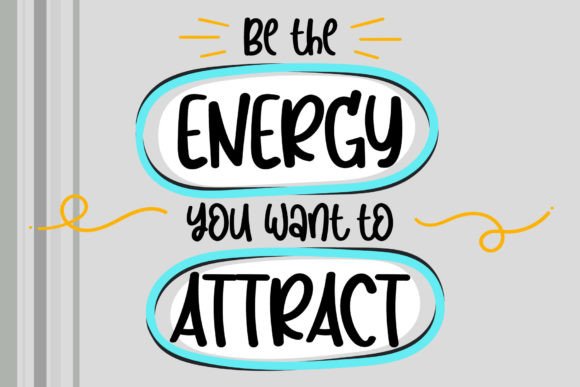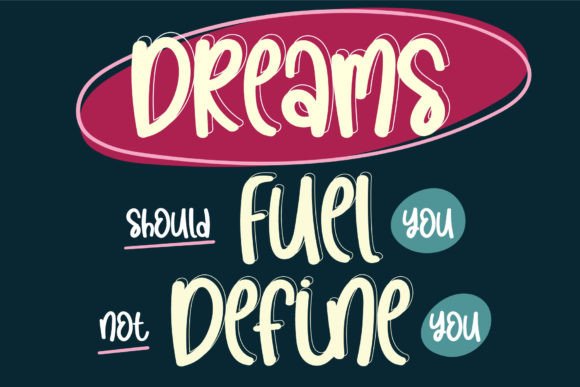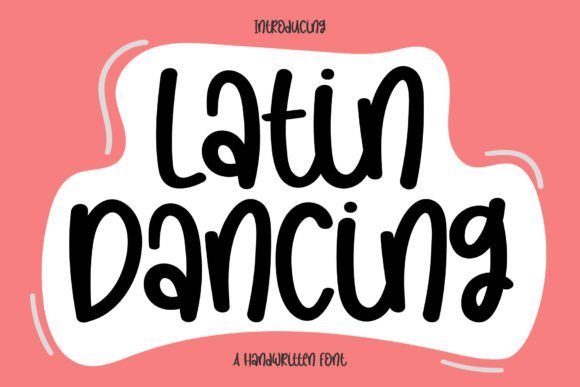
Introduction to Latin Dancing Font
Latin Dancing is a simple, joyful handwritten font.
Its casual charm makes it appear wonderfully down-to-earth, readable, and, ultimately, incredibly versatile This will look outstanding in any context, whether it’s being used on busy backgrounds or as a standalone headline.
Latin Dancing Font offers exceptional quality and versatility, making it a valuable addition to your design toolkit. Whether you’re creating for personal projects or commercial use, Latin Dancing Font delivers professional results.